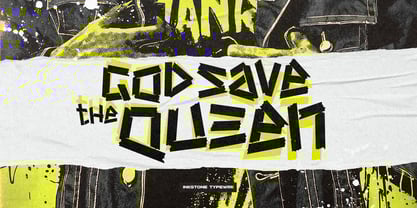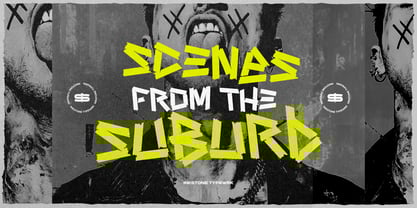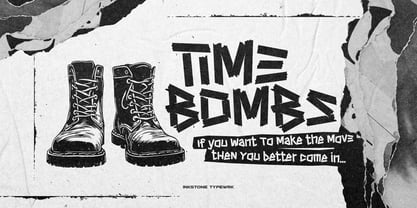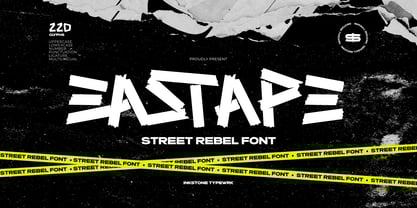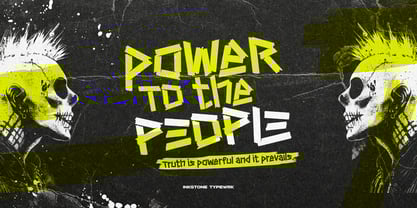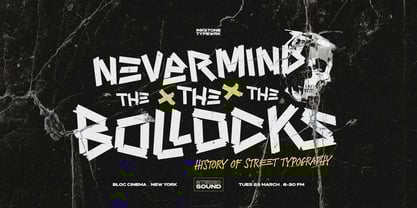
Eastape
by Inkstone Typewrk
The Eastape Font Family was designed by Andhika Pradana, Yono Asmadiputra and published by Inkstone Typewrk. Eastape contains 1 styles.
Eastape - Street Rebel Font
Eastape is inspired by tape that’s shaped into letters, often used for protests or vandalism. The font is ultimate for the bold, the rebellious, and the stylish. Packed with energy, it channels the essence of street style and urban culture, capturing the essence of hype and streetwear in every letter. This tape font adds an edgy twist to your designs, making them pop with a sense of revolt and rebellious spirit. Perfect for the youth-driven, street-savvy crowd, Eastape brings a fresh vibe that speaks to the streets, the hustle, and the fight for individuality.